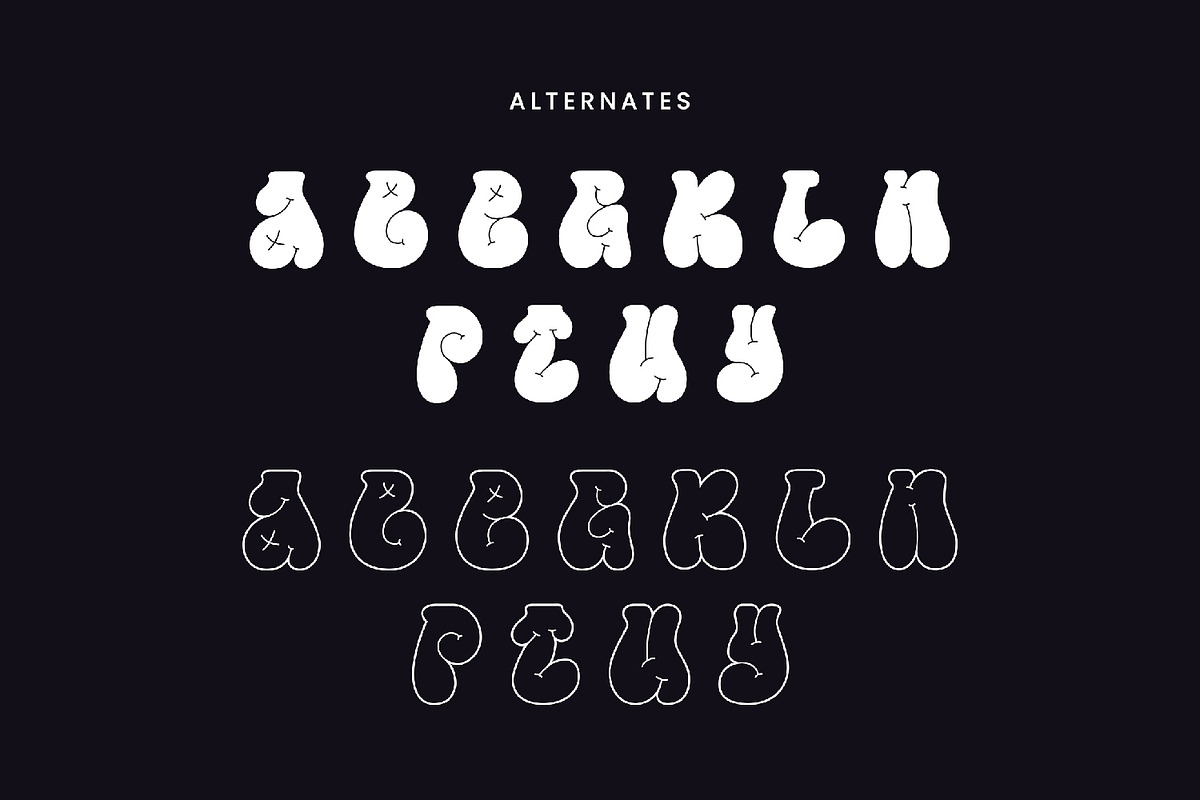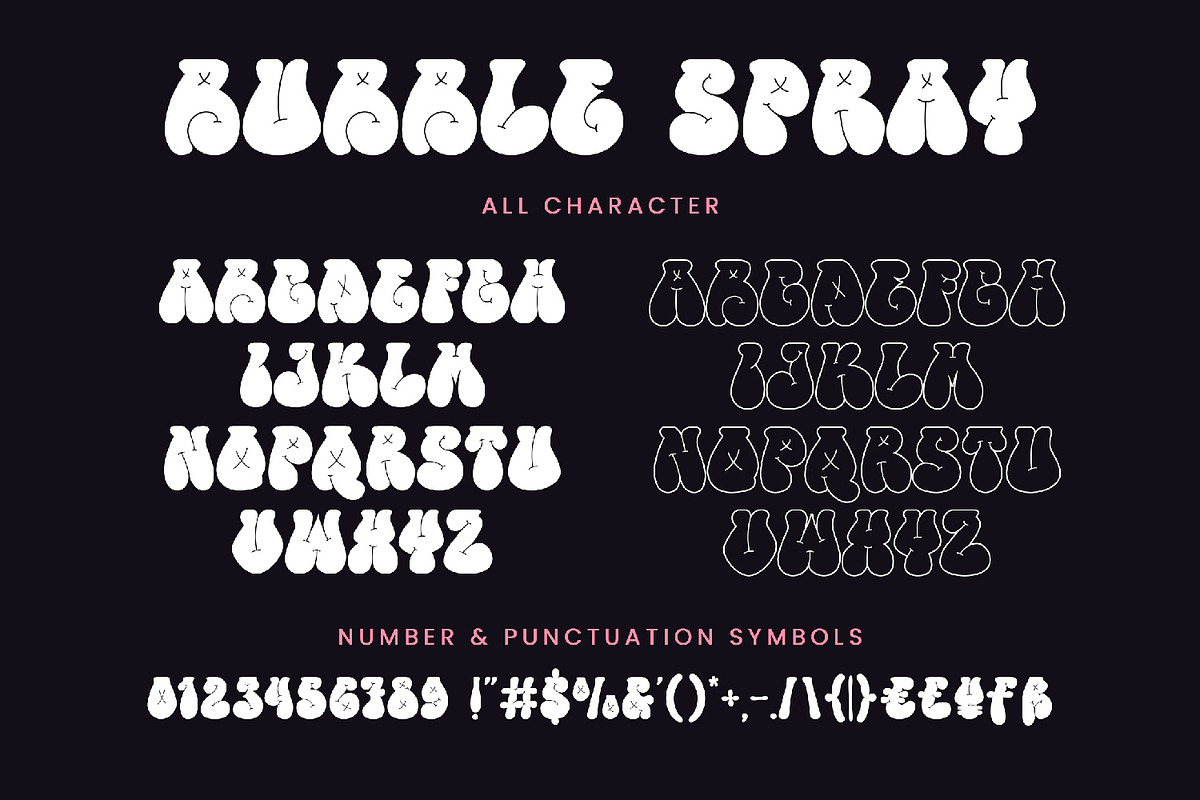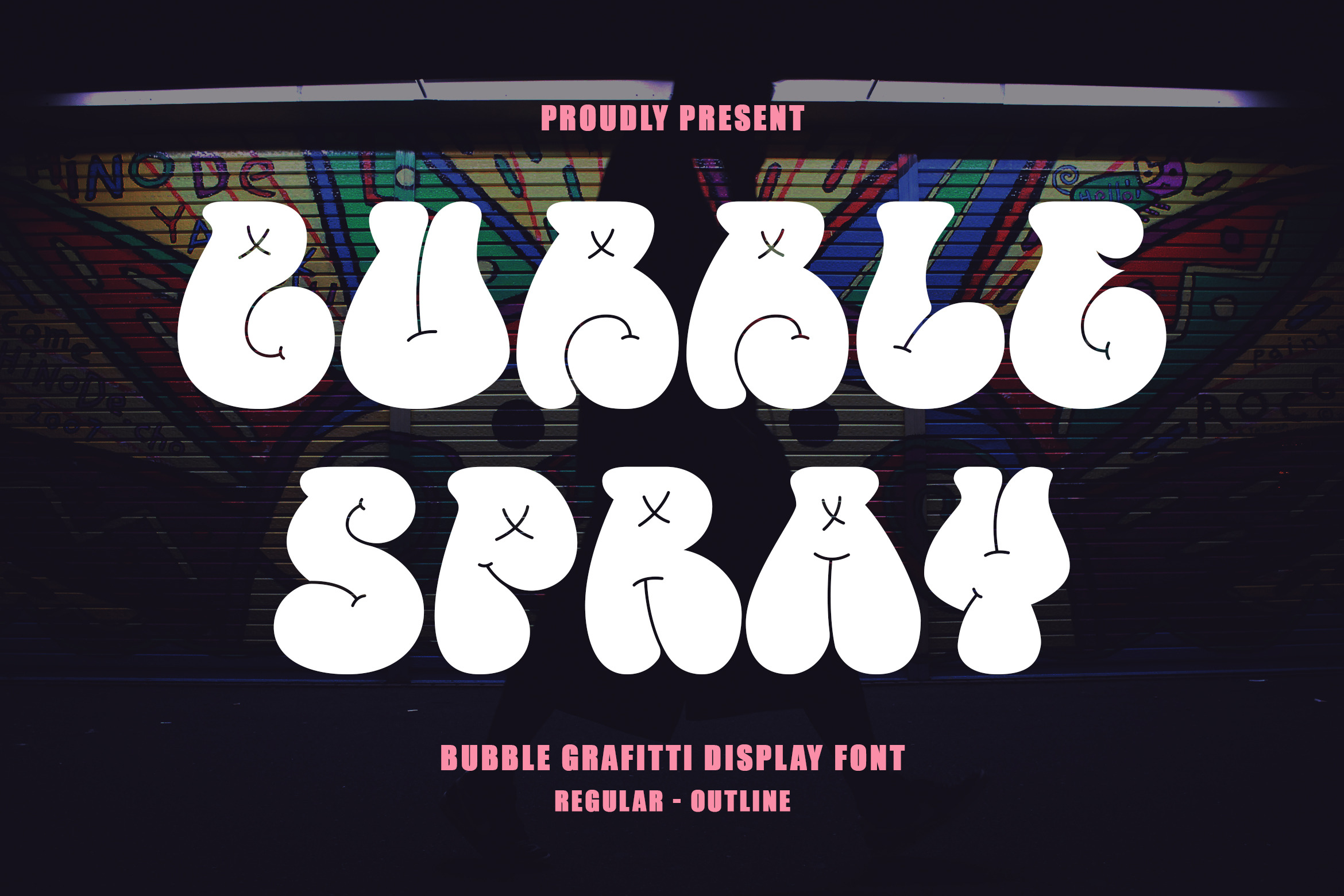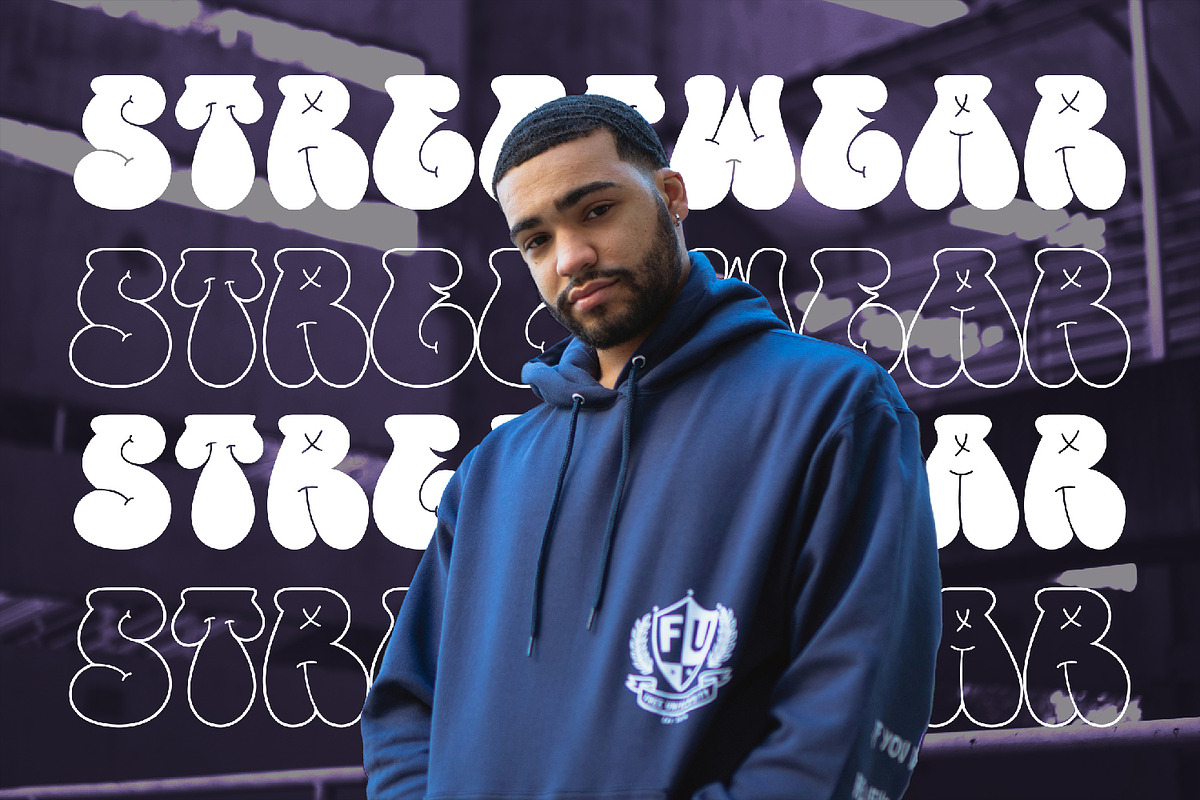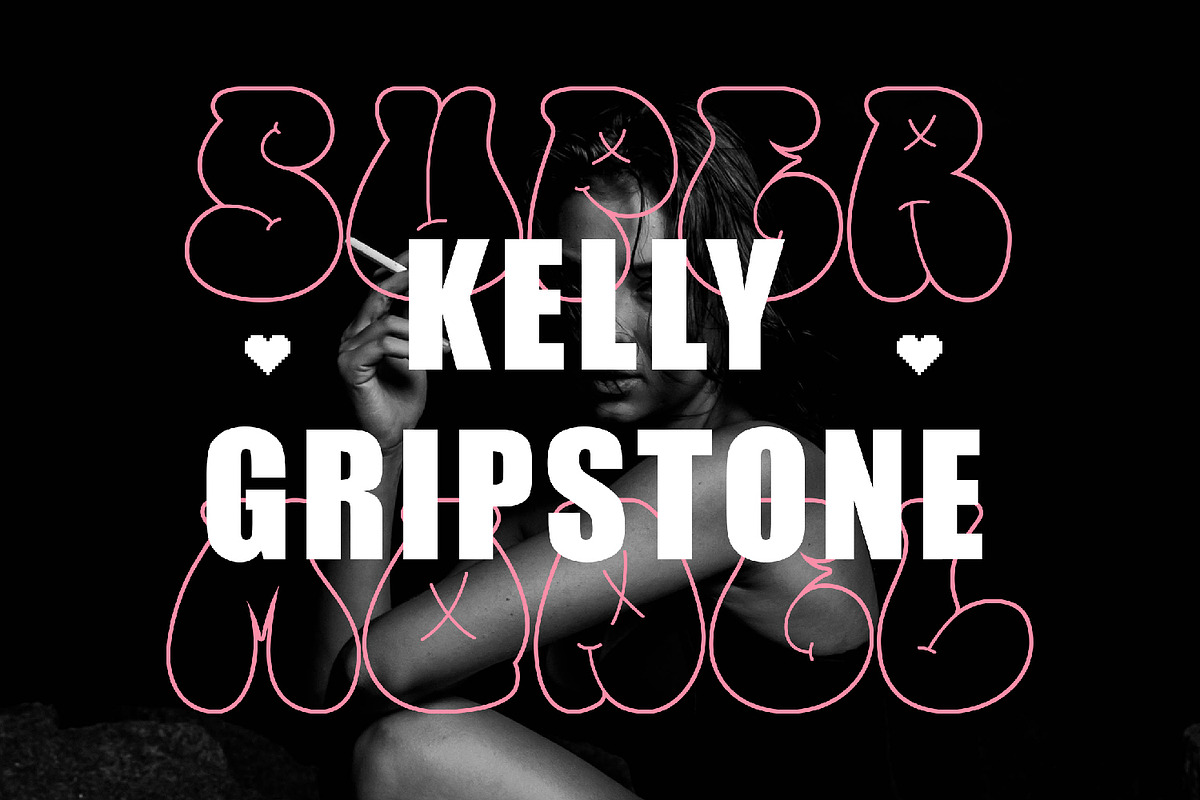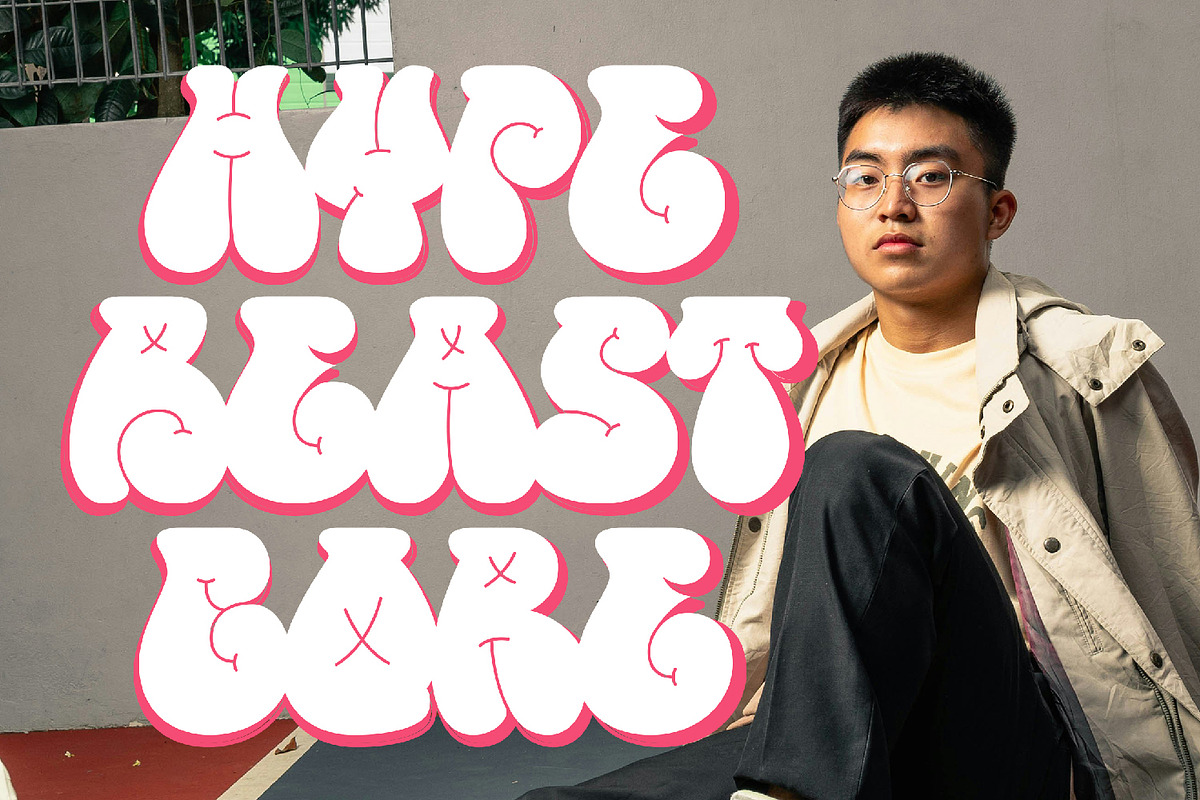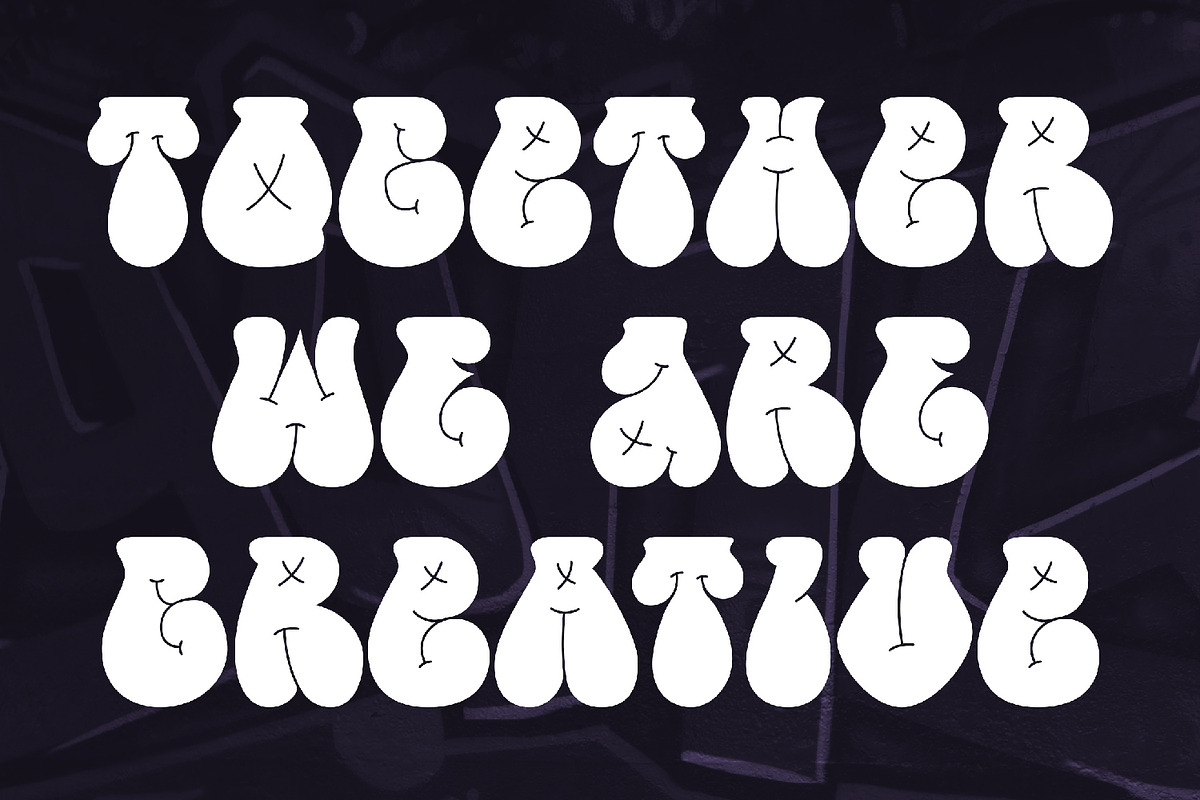
Bubble Spray - Grafitti Font
Bubble Spray - Grafitti Font contains a lowercase, uppercase, symbol, and also supports multi-language. There’s a lot of ligature in this font. Bubble Spray - Grafitti Font also comes with ligatures, stylistic alternates and many more. this font suitable for fashion, branding, catalog and other design that you want.